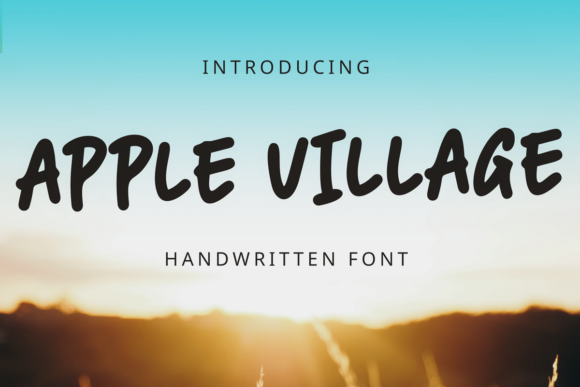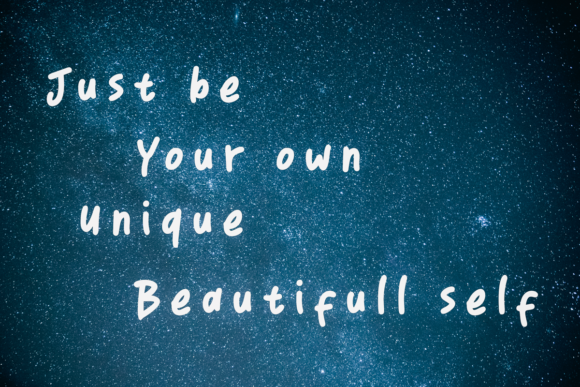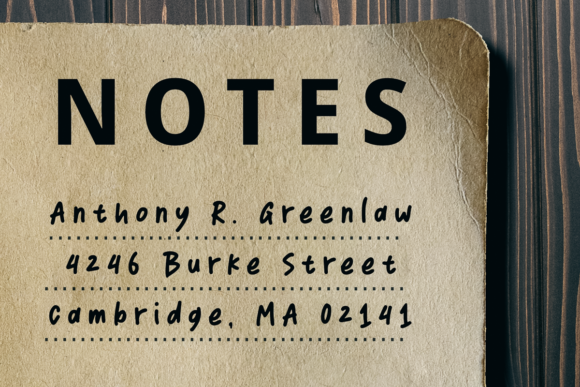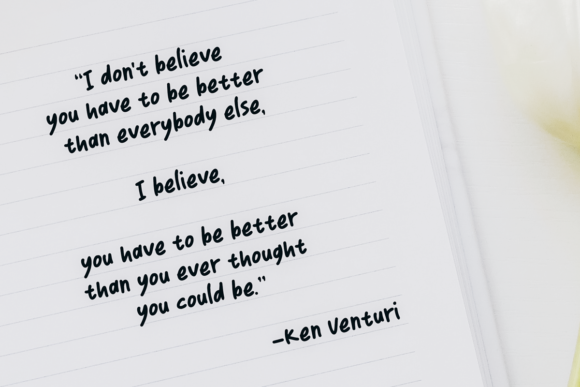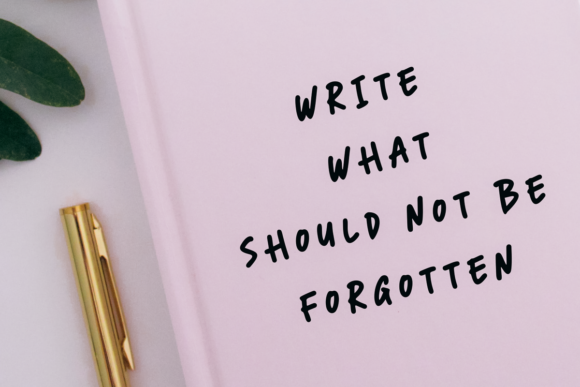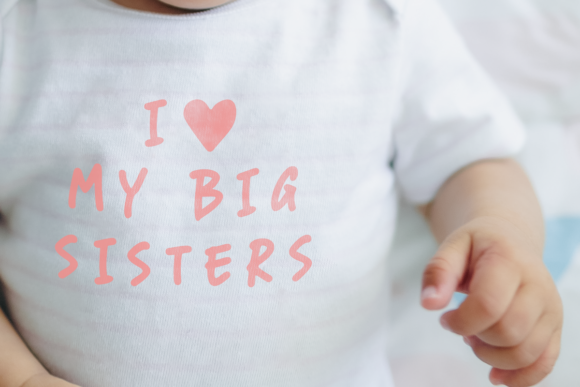
Discover the Charm of Apple Village Font
There’s nothing quite like the rush of creativity that comes when you’re working on a new design project. The blank page stares back at you, waiting for your imagination to bring it to life. For many designers, this moment is what drives them to push the boundaries of what’s possible and create something truly unique. And that’s exactly where the Apple Village Font comes in – a clean and simple handwritten font that’s perfect for adding a personal touch to your projects.
Whether you’re designing a logo, creating a T-shirt design, or working on an ad campaign, the Apple Village Font is a versatile and valuable addition to your toolkit. Its friendly and approachable style makes it an ideal choice for a wide range of applications, from branding and marketing to editorial and social media content. With the Apple Village Font, you can add a touch of personality and whimsy to your designs, setting them apart from the crowd and making them truly unforgettable.
Apple Village Font Key Features
- Font Family: Apple Village Font is a custom-designed font family that includes multiple weights and styles.
- Unique Characteristics: Apple Village Font features a unique, hand-drawn aesthetic with a mix of modern and vintage elements, making it suitable for a variety of design projects.
Designer Review: Apple Village Font
As a designer, I’m always excited to explore new fonts. The Apple Village Font caught my attention with its unique and whimsical style. ✨ Here’s what I liked about it:
- Handwritten feel: The font has a genuine, handwritten feel that makes it perfect for creative and artistic projects.
- Playful characters: The characters in the font are designed to be playful and expressive, which adds to its charm.
- Multi-language support: Apple Village Font supports multiple languages, making it a great choice for international projects.
- Limited font weights: The font only comes in a few weights, which may limit its versatility in certain projects.
- No bold or italic versions: While the font has a bold feel, it doesn’t have a traditional bold or italic version, which may be a drawback for some designers.
- May not be suitable for formal projects: The font’s playful style may not be suitable for formal or professional projects.
Overall, I think Apple Village Font is a great choice for designers who want to add a touch of whimsy and creativity to their projects. It’s perfect for illustrations, posters, and other artistic projects. However, it may not be the best choice for formal or professional projects.
Getting the Most Out of Apple Village Font
Apple Village Font is ideal for:
- Home decor and furniture design
- Children’s products and packaging
For the best results, use Apple Village Font in conjunction with warm and earthy color schemes.